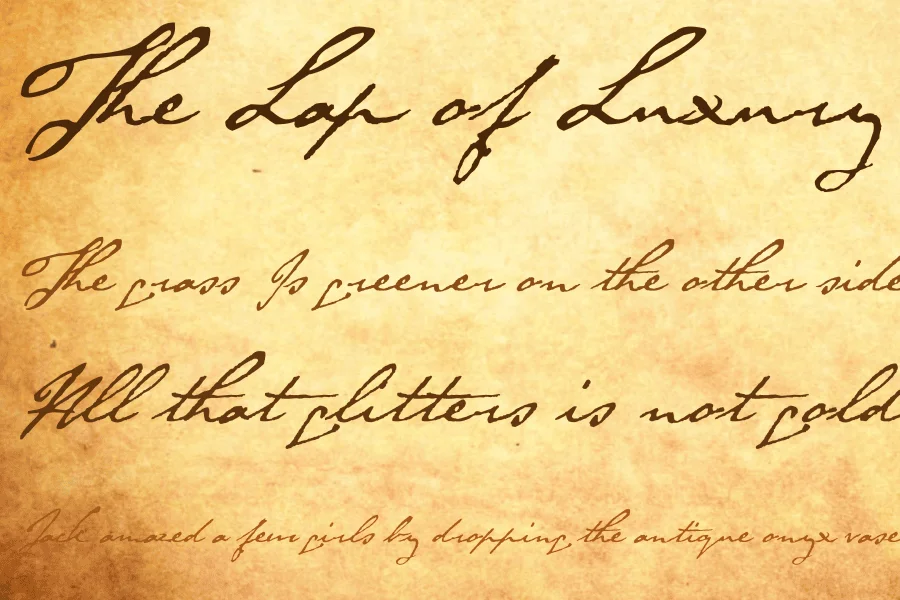
A handmade font created by the handwriting of Lord Byron. Byron is a unique contemporary font that imitates the style of handwriting and brush scripts.